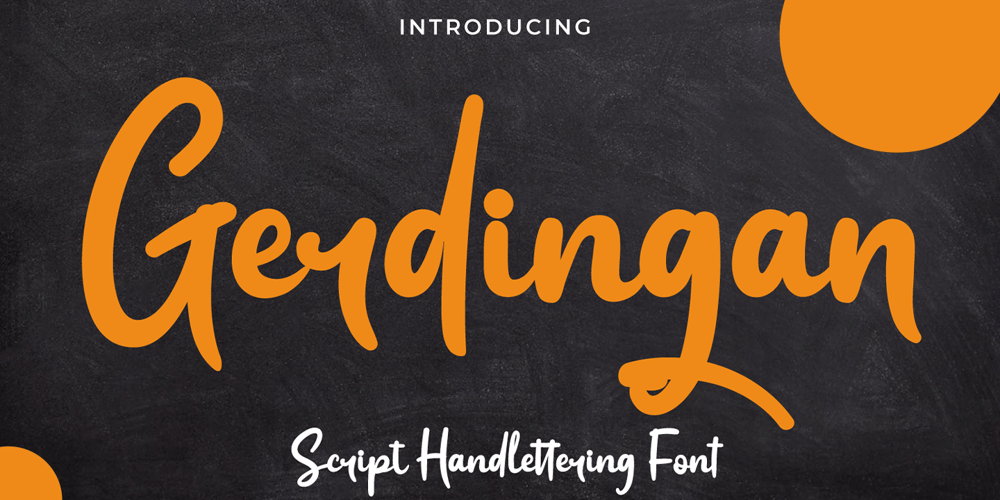
Gerdingan Font Family was designed by Rozikan and published by Twinletter. Gerdingan contains 1 styles and family package options. Introducing our newest Font, the name Gerdinganfonts are made with a script model that is intended to write beautiful names, and beautiful words and sentences of course with typography harmony.This font also offers beautiful abstract typography harmony for a wide variety of design projects, including natural handwriting in digital form for designs, quote designs, for social media business designs, advertisements, trademarks, promotional banners, posts, posters, signatures, and all designs require handwriting or whatever design you want.This font is equipped with uppercase, lowercase, numbers, punctuation marks, swhases and several variations on each character including multi-language.==================================================This font is best suited for open type friendly applications. How to get alternative glyphs from open type fonts: http://adobe.ly/1m1fn4YPUA Character Code – Fully accessible without additional design software.do not hesitate anymore start using this font. and Feel free to send any message you want to convey.